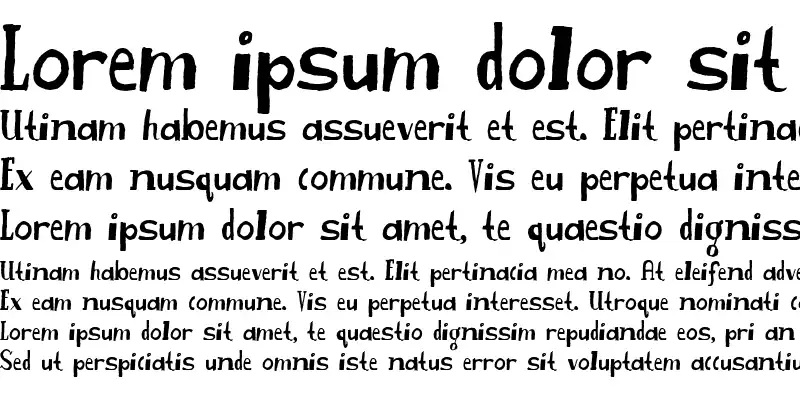
The Naughties Font is perfectly designed for numerous nostalgic and trendy applications including early 2000s throwback campaigns, millennial nostalgia marketing, retro tech branding, Y2K-inspired designs, pop culture event promotions, vintage social media graphics, nostalgic fashion campaigns, gaming industry materials, entertainment brand communications, and millennial-targeted advertising projects. Its distinctive character makes it particularly effective for entertainment companies, fashion brands, tech startups, and lifestyle businesses seeking to convey millennial nostalgia, early 2000s authenticity, and pop culture relevance in their visual communications and brand presentations.
What makes the Naughties Font incredibly exciting is its authentic recreation of early 2000s digital aesthetics combined with contemporary design sophistication. This nostalgic typeface captures the essence of the millennium era's bold experimentation and technological optimism while incorporating modern typographic principles that ensure optimal performance across today's diverse media landscape. The font's captivating character emerges from its distinctive Y2K-inspired letterforms, tech-influenced proportions, and carefully crafted details that evoke a sense of millennial nostalgia and digital-age excitement, making it perfect for brands seeking to establish connection with generation Y and appeal to nostalgia-driven audiences.
The Naughties Font family encompasses multiple weights and styles designed to accommodate various nostalgic branding requirements. The collection typically includes light, regular, medium, bold, and black weights, with many versions offering digital-inspired italic variants that enhance the font's Y2K appeal and millennium character. Some editions may include retro alternates, tech-style ornaments, and early 2000s design elements that provide additional design options for creating unique typographic treatments and nostalgia-focused brand applications.
Millennial marketing professionals and nostalgic design specialists consistently choose the Naughties Font Free Download for its exceptional authenticity and cultural relevance. The font features optimized spacing and kerning that ensures clear readability across various nostalgic applications, from small social media graphics to large-scale throwback advertising campaigns. Its robust construction maintains its distinctive millennium character in both digital and print environments, while the comprehensive character set includes uppercase and lowercase letters, numerals, punctuation marks, and special symbols, along with extensive language support for international nostalgic projects and global millennial communications.
The Naughties Font represents the perfect preservation of early 2000s design culture combined with contemporary functionality. Its nostalgic aesthetic appeals to millennial audiences while maintaining the professionalism required for serious marketing applications. The font's remarkable versatility allows it to work effectively in both authentic Y2K contexts and modern retro-inspired campaigns, ensuring consistent cultural impact across nostalgic websites, throwback merchandise, millennial marketing, and pop culture communications.
Relive the millennium era and connect with millennial nostalgia using the authentic Y2K spirit and cultural relevance of the Naughties Font, the ultimate choice for early 2000s typography excellence.